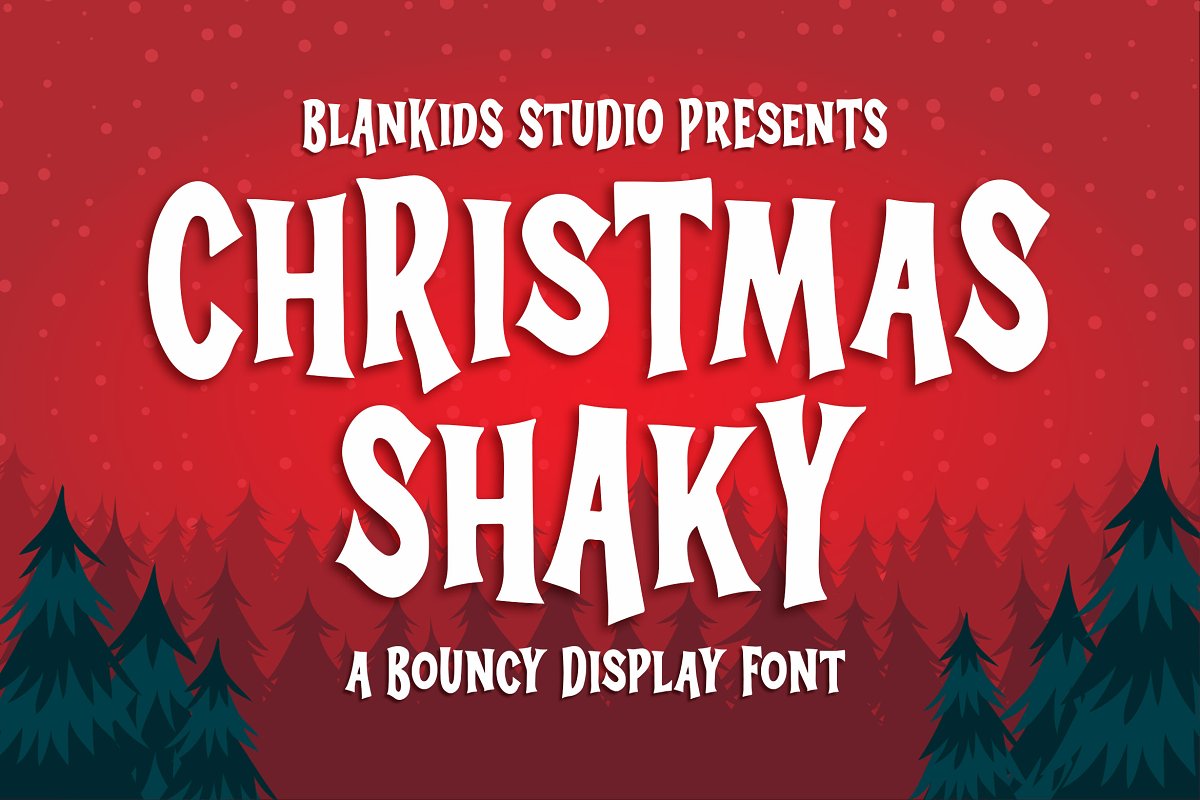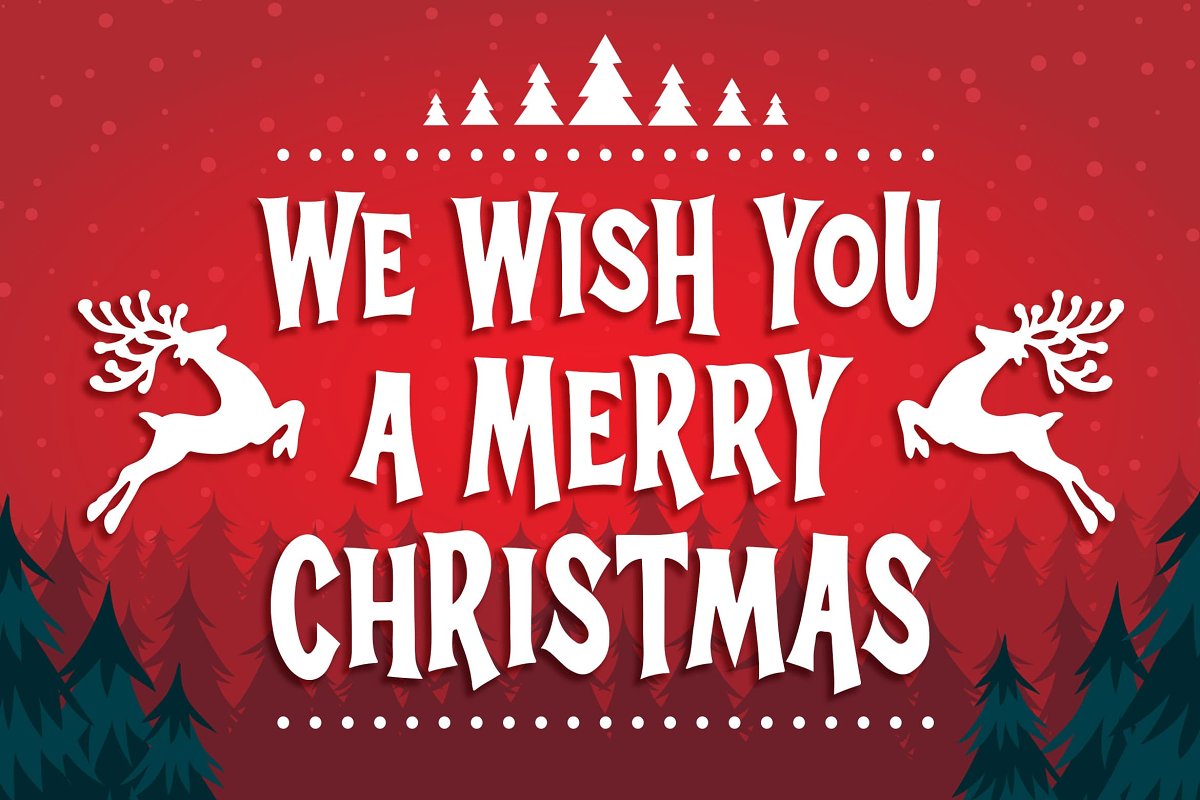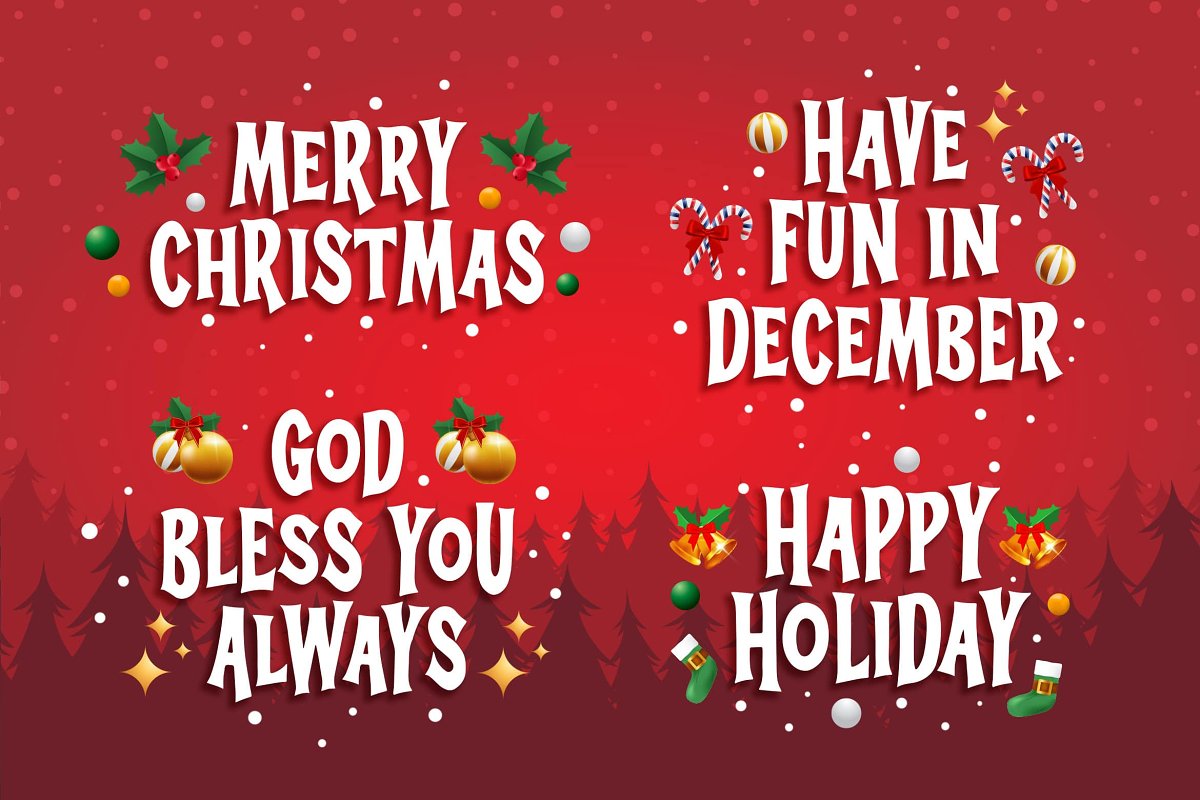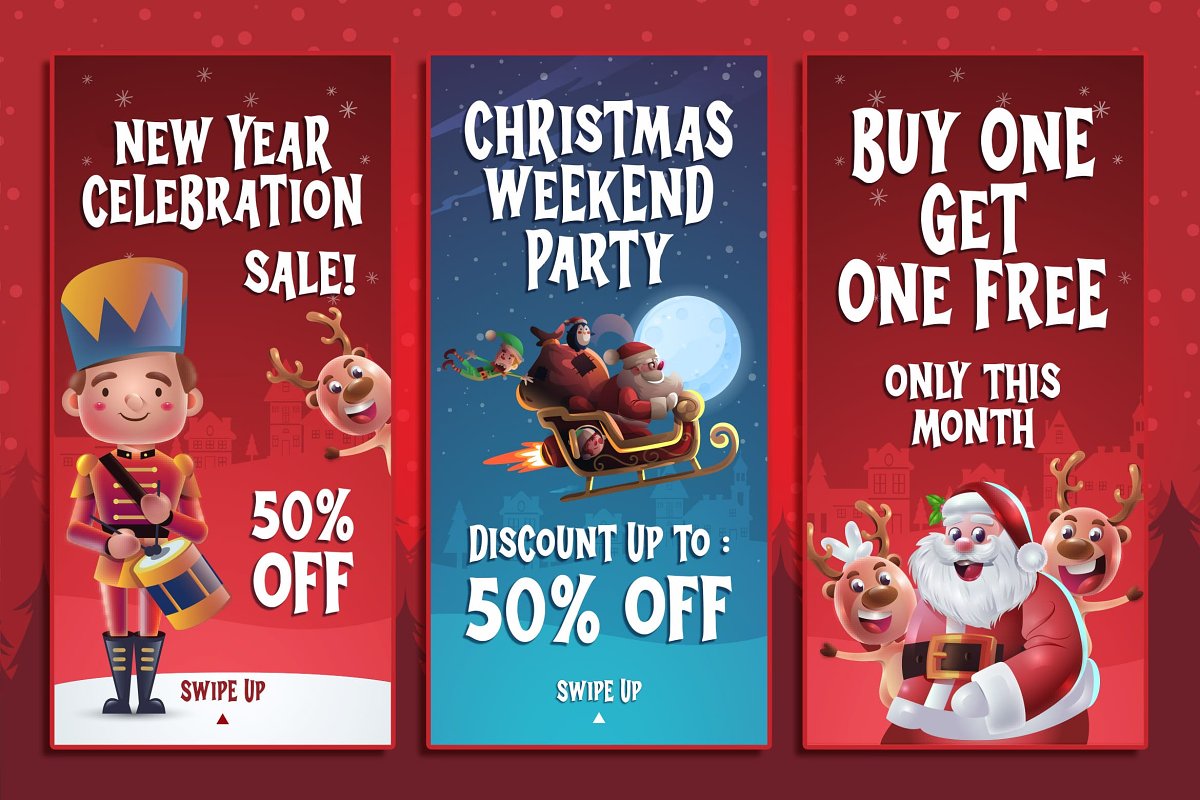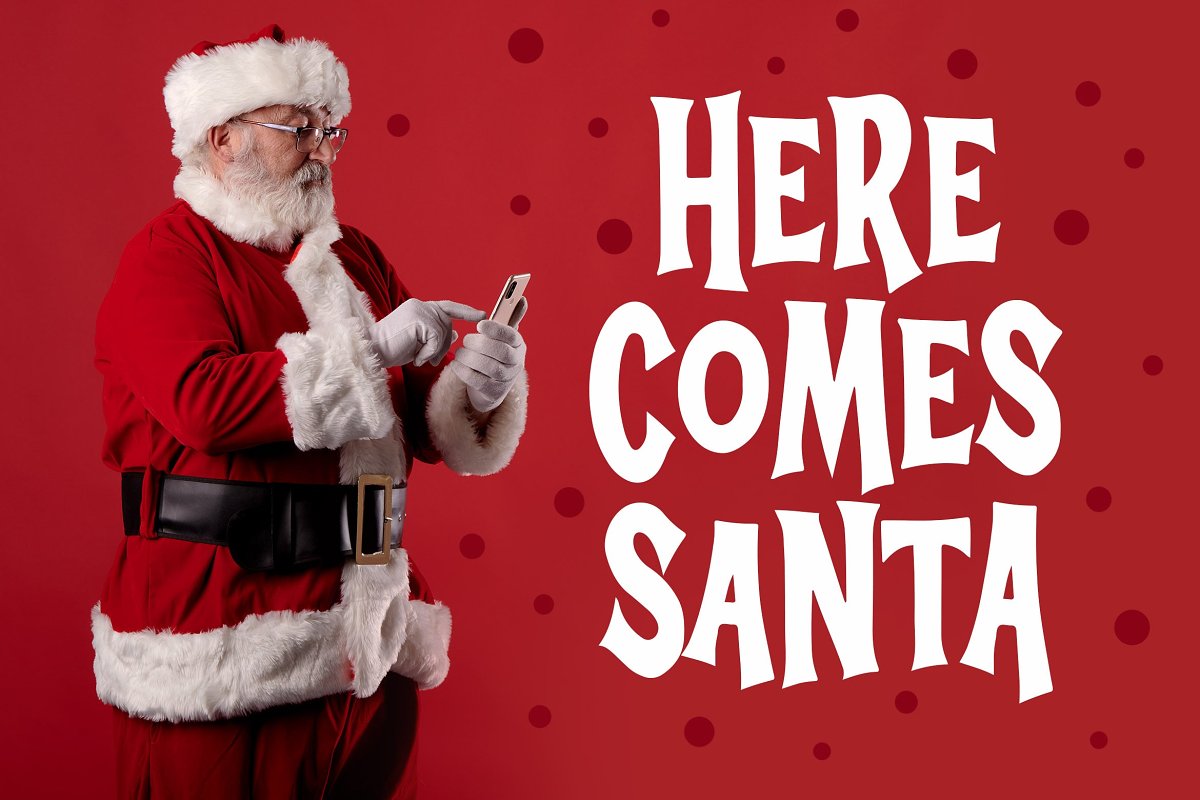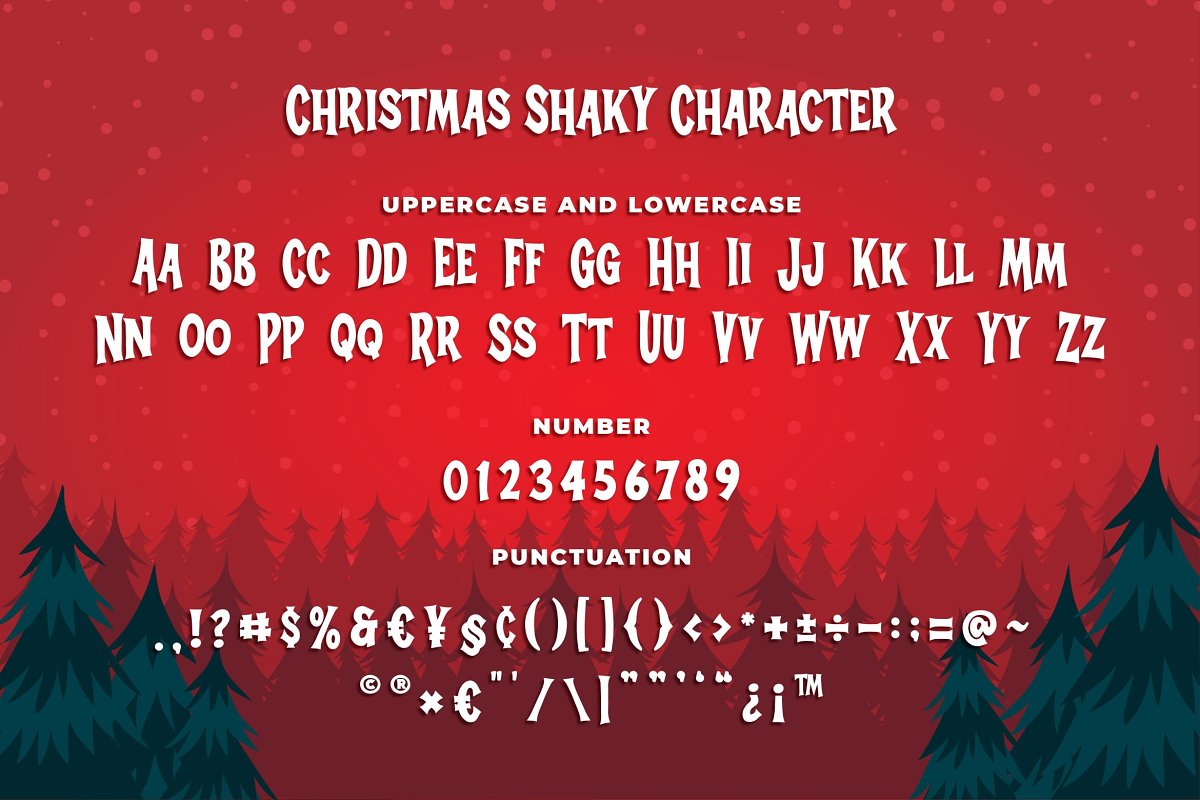
About the Christmas Shaky a Bouncy Display Fo
Hello,Are you looking for a Christmasl font? Do you want of creating something that stand out and inspire creativity, imagination, and endless fun? Wait no more, we will give you the best choice, Christmas Shaky a Bouncy Display Font, Inspiring from playful stone style typography, This font is perfect for a design that makes it more attractive and playful
made with a very good level of aesthetics making this font suitable for book cover, children book, comic, poster, packging, merchandise, logotype and much more, Christmas Shaky font includes Multilingual Support, among others :Afrikaans, Albanian, Asu, Basque, Bemba, Bena, Breton, Catalan, Chiga, Cornish, Danish, Dutch, English, Estonian, Faroese, Filipino, Finnish, French, Friulian, Galician, German, Gusii, Indonesian, Irish, Italian, Kabuverdianu, Kalenjin, Kinyarwanda, Luo, Luxembourgish, Luyia, Machame, Makhuwa, Meetto, Makonde, Malagasy, Manx, Morisyen, North Ndebele, Norwegian Bokmål, Norwegian Nynorsk, Nyankole, Oromo, Portuguese, Quechua, Romansh, Rombo, Rundi, Rwa, Samburu, Sango, Sangu, Scottish Gaelic, Sena, Shambala, Shona, Soga, Somali, Spanish, Swahili, Swedish, Swiss German, Taita, Teso, Uzbek (Latin), Volapük, Vunjo, ZuluFEATURES :UppercaseLowercaseNumberPunctuationMultilingualPUA EncodeOpentypeFILES INCLUDED :Christmas Shaky